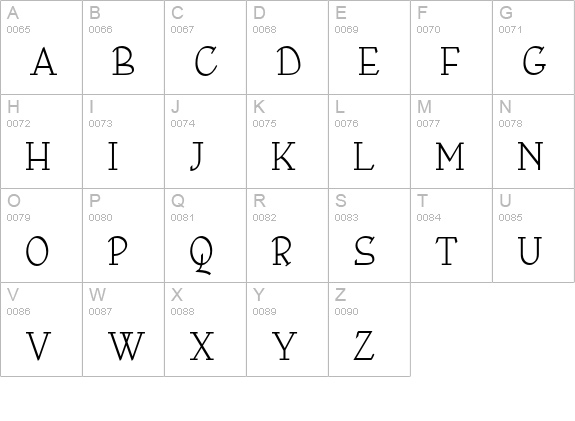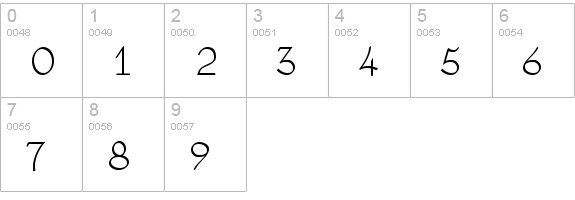
Nymphe Font Details
The Nymphe font is a stunning display typeface that exudes elegance and sophistication. With its delicate curves and graceful lines, Nymphe is the perfect choice for projects that require a touch of femininity and charm. This versatile font can be used for a wide range of design applications, from wedding invitations to branding materials. What sets Nymphe apart is not only its beauty, but also the fact that it is available for free download at FontsMarket.com. This means that you can easily access this exquisite font and use it in your projects without any cost. Whether you're a designer looking to add a unique flair to your work or an individual wanting to elevate your personal projects, Nymphe is sure to impress with its timeless appeal. Download Nymphe font today and bring a touch of elegance to your designs.